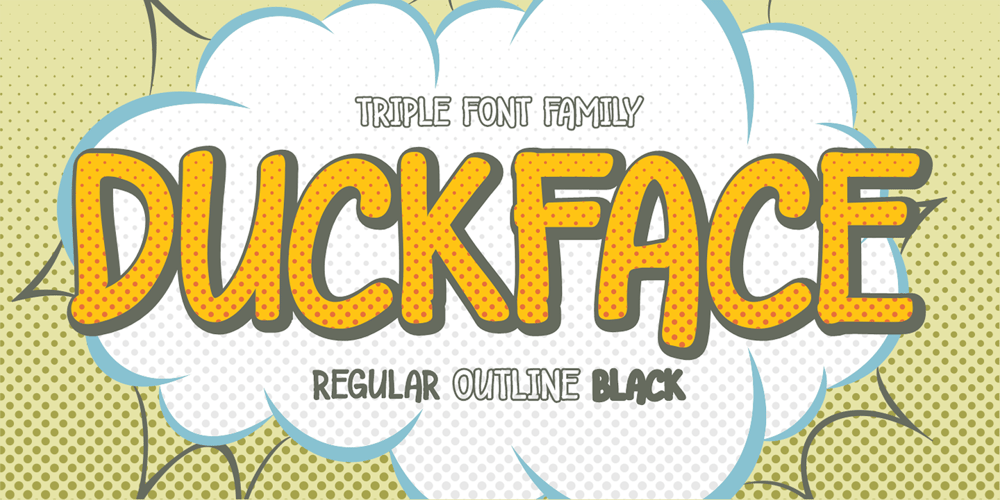
Duckface Font Family was designed by Raditya Putra Pratama and published by Raditya Type. Duckface contains 3 styles and family package options. Duckface. Fun display font. A cartoon font. Fonts for cheerful and explosive mood.Duckface consists of three font styles. Regular, outline and black.Bold and fun font display with lots of impact! Use it as a comic book font. Use it as a cartoon font. It’s fun and powerful. Suitable for children’s and children’s equipment but still cool and unique for products with character bags. And impact!Create your own fantastic design! Perfect for designs including comic fonts or cartoon fonts. That’s good!!!Multilingual FontsFull uppercase characters. It is also multilingual and contains all standard Western, Central and Southeast European language support.